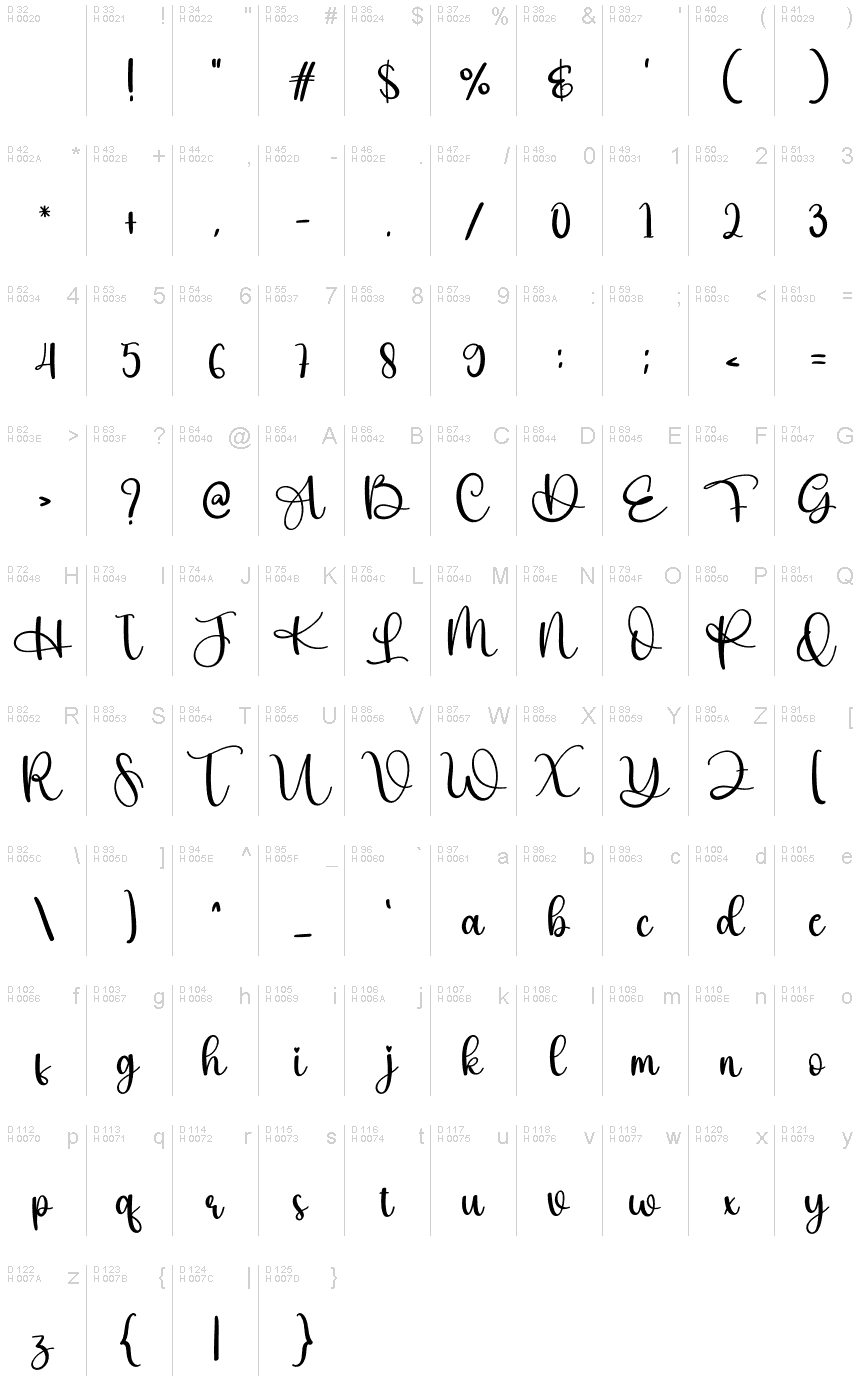
Hey Beach
Hey Beach, a captivating calligraphy font designed by scratchones, exudes an air of elegance and creativity. With its semi-light weight, it effortlessly adds a touch of sophistication to any project. Perfect for wedding invitations, feminine branding, and inspirational quotes, Hey Beach brings forth a sense of warmth and tranquility. Its fluid strokes and intricate details make it ideal for crafting stunning logos or designing eye-catching social media graphics. Whether you're working on romantic stationery or want to infuse your designs with a whimsical charm, Hey Beach is the perfect font choice to make your creations shine.
The latest style letters are perfect for wall displays, wedding invitations, social media post logos, advertisements, product packaging, product designs, labels, photography, watermarks, invitations, stationery, and any project that requires taste handwriting.